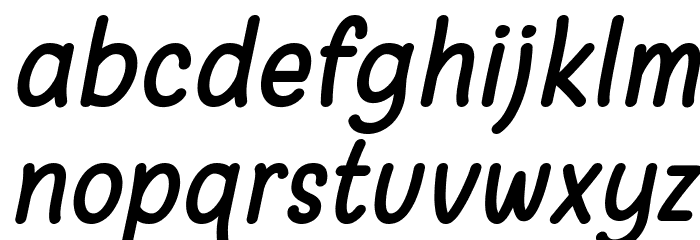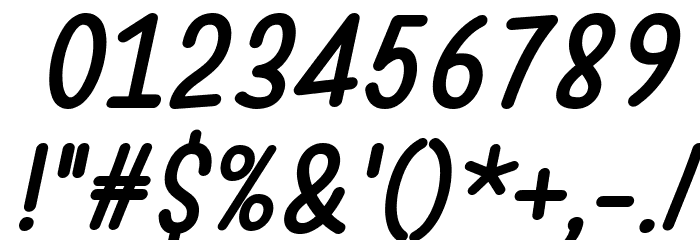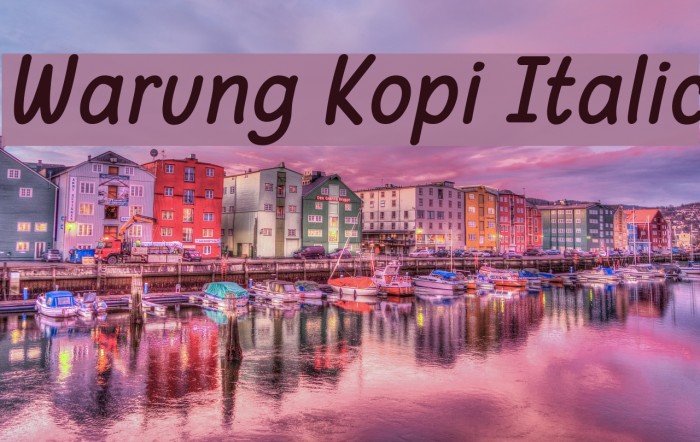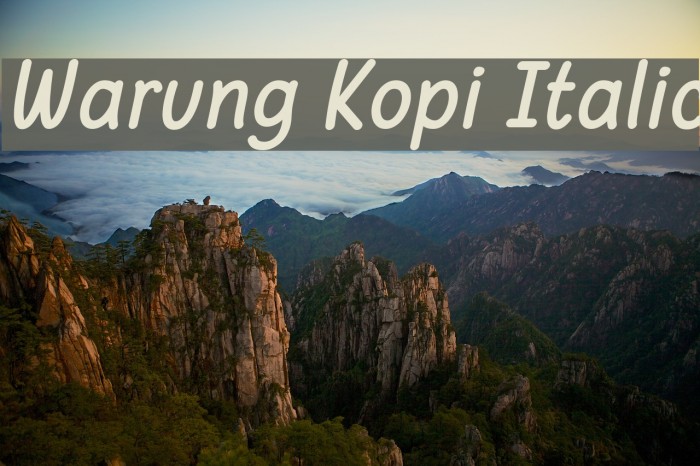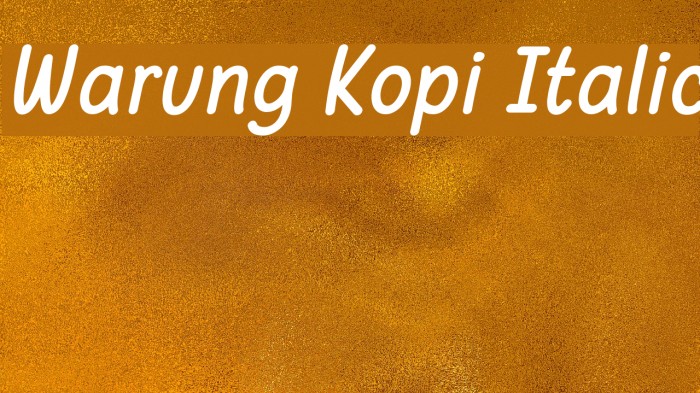
Warung Kopi Italic Font
This font features a dynamic and energetic style with a handwritten feel. The letters are slightly slanted, giving it an italic appearance that adds a sense of motion and fluidity. The strokes are smooth and consistent, with rounded edges that contribute to its approachable and friendly character. The uppercase and lowercase letters maintain a uniform height, ensuring readability. Numbers and special characters are designed with the same playful and informal touch, making the font versatile for various applications.
A lively, handwritten-style italic font with smooth, rounded strokes.
- Proposed Projects: Ideal for branding, casual invitations, social media graphics, and playful merchandise designs.
- Overall Style: Casual
- Use Case: Headlines, Logos, Informal Text